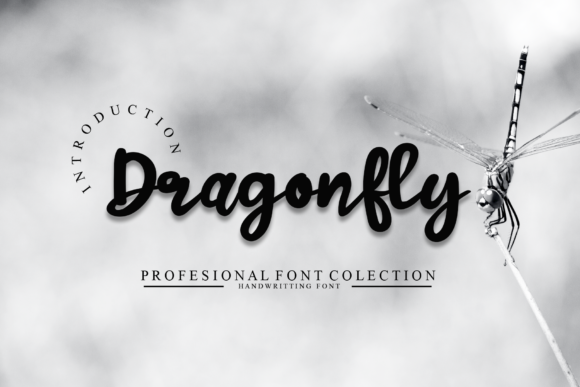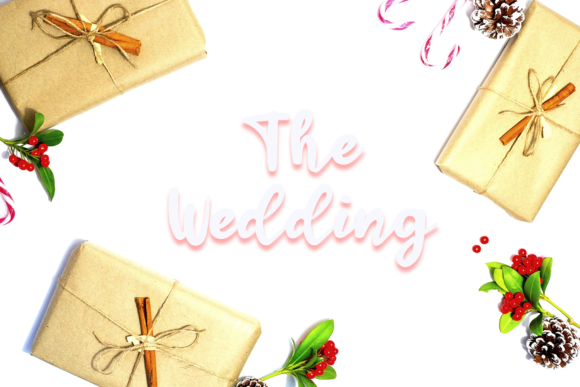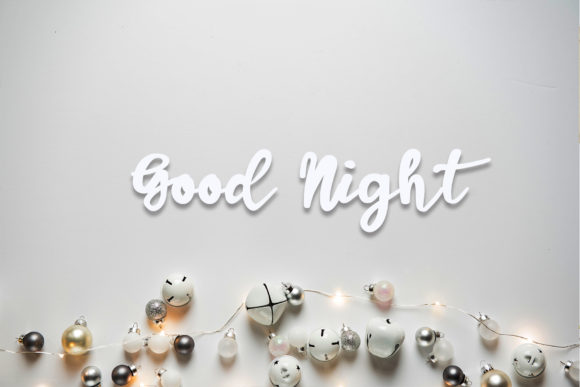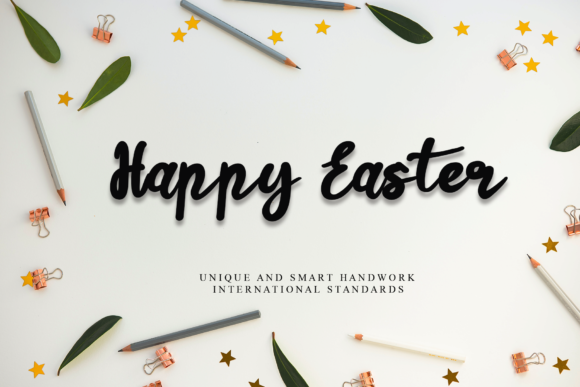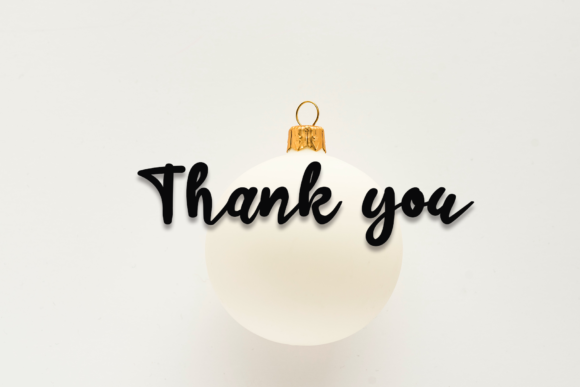
Dragonfly Font
About Dragonfly Font
Dragonfly is a sweet and round lettered handwritten font. Dainty and joyful, this font will be ideal for writing wedding invitations, cards or any other design that may need a dreamy, personalized touch!